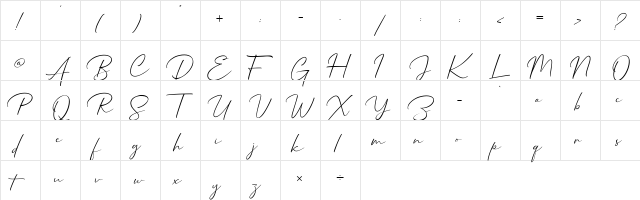
Mathanifo Script Regular
Mathanifo Script flows with the natural rhythm of handwritten lettering, making it ideal for designs that call for warmth and personal expression.
Font Pairing: Combine Mathanifo Script with a simple geometric sans for maximum contrast — the tension between flowing curves and clean structure is a classic typographic pairing.
Pro Tip: Use Mathanifo Script for short runs of text — names, titles, or taglines. Extended body copy in script faces tires the eye quickly.